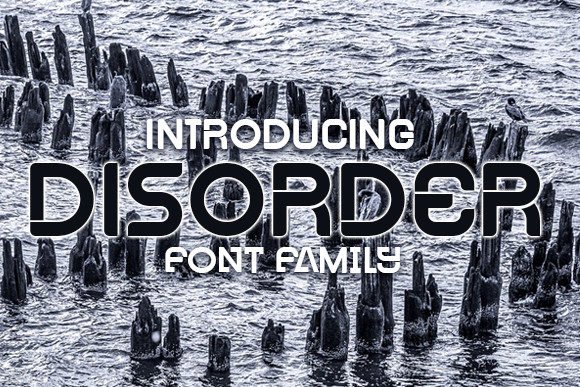
The Perfect Dose of Chaos for Your Design
Have you ever found yourself staring at a blank canvas, waiting for that spark of creativity to strike? It’s a feeling designers know all too well – the thrill of bringing an idea to life, but the frustration of not knowing where to start. But what if I told you there’s a font that can help you break free from the ordinary and unleash your inner designer?
Enter Disorder Font, a bold and imposing display font that’s perfect for making a statement. With its techno style, Disorder Font is ideal for web designs, business cards, or any project that needs a unique touch. And for designers, this font is a valuable asset – it’s a game-changer that can elevate your work from meh to mesmerizing.
Disorder Font Key Features
- Font Family: Disorder Font is a sans-serif typeface.
- Unique Characteristics: Disorder Font features a bold and modern design with rounded edges and clean lines, making it suitable for digital and print applications.
Disorder Font Review
At first glance, Disorder Font is quite an interesting addition to any design project. Here are a few things that ✨work well✨:
- Unique and quirky style, great for adding a touch of personality to a design
- Wide range of characters and symbols, making it suitable for various languages and use cases
- Clear and readable even at smaller font sizes
However, there are a few limitations to keep in mind ⚠️:
- Not ideal for formal or professional projects due to its unconventional design
- May not be easily legible in certain color schemes or backgrounds
- May require adjustments in line spacing or font sizes to achieve optimal readability
Overall, Disorder Font is a fun and creative option for designers looking to add some visual interest to their projects. While it may not be suitable for every project, it’s a great choice when the goal is to stand out and convey a sense of playfulness or experimentation.
Getting the Most Out of Disorder Font
Disorder Font is perfect for creating unique and eye-catching text effects. To get the most out of it, try:
- Experimenting with different font sizes and styles.
- Combining Disorder Font with other fonts for a layered look.
- Using Disorder Font to create a focal point in your design.
Disorder Font is perfect for:
- Creating attention-grabbing headlines.
- Designing unique typography for social media graphics.
- Adding a touch of personality to your brand’s visual identity.
Alternatives to Disorder Font
1. Merriweather
Merriweather is a classic serif font that works well for body text. It’s suitable for use in books, magazines, and other long-form content. It’s a more traditional choice compared to Disorder Font, which has a more modern feel. Merriweather has a strong, elegant appearance that’s perfect for creating a sense of sophistication and refinement.
Montserrat is a sans-serif font that’s perfect for use in digital interfaces. It’s a clean and modern font that’s highly legible, making it ideal for use in headings and body text. Compared to Disorder Font, Montserrat has a more minimalist feel, but it’s still a great choice for creating a bold and modern look.
Lato is a sans-serif font that’s highly versatile and works well for a wide range of applications. It’s a great choice for use in headings and body text, and it’s particularly suitable for use in digital interfaces. Compared to Disorder Font, Lato has a more neutral feel, but it’s still a great choice for creating a clean and modern look.
4. Playfair Display
Playfair Display is a luxurious serif font that’s perfect for use in headings and titles. It’s a highly ornate font that adds a touch of elegance and sophistication to any design. Compared to Disorder Font, Playfair Display has a more formal feel, but it’s still a great choice for creating a sense of drama and flair.
Disorder Font Creative Projects
Project 1: Urban Graffiti Wall
The Urban Graffiti Wall project features Disorder Font as the primary text style. It’s a vibrant and edgy design that captures the essence of street art.